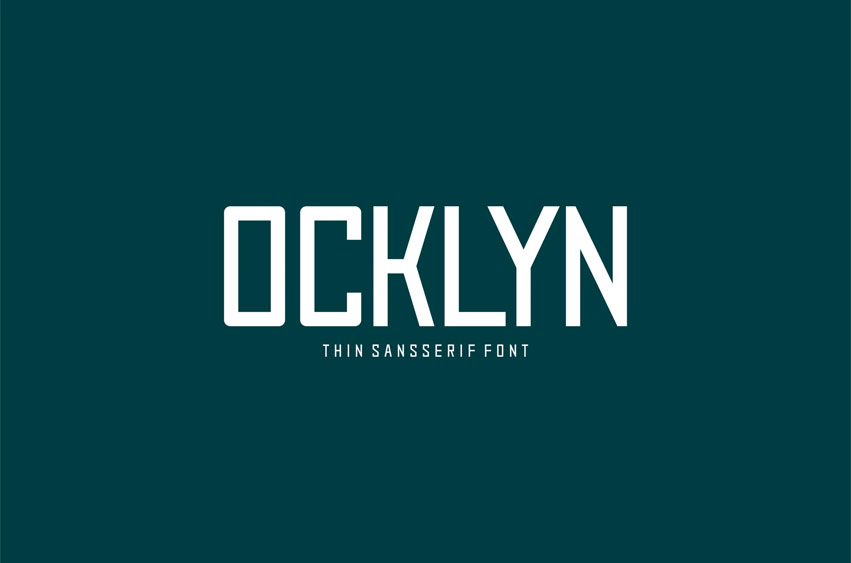
Ocklyn Font
Ocklyn Font Modern Font is a bold and authentic display font. The font is suitable for any branding project, like logos, esport, and many more.